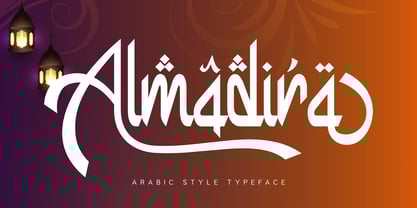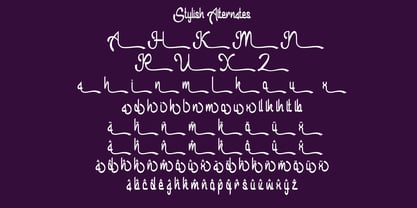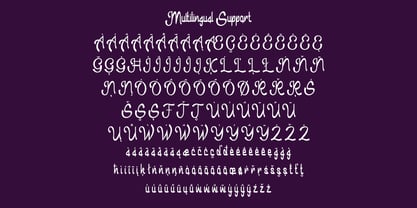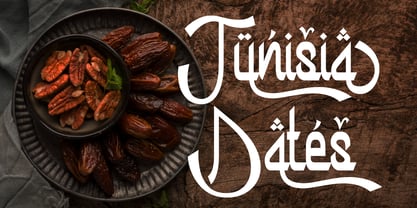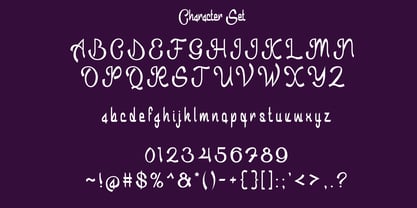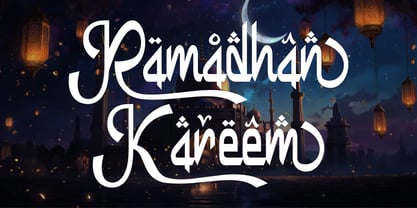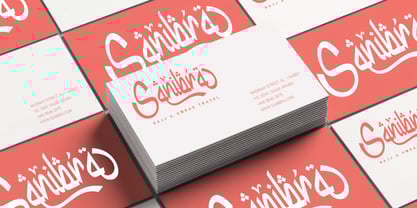
Almadira
Die Schriftfamilie Almadira wurde von Saiful Anwar entworfen und von Sealoung veröffentlicht. Almadira enthält 1 Stile.
Introducing “Almaira” – an elegant and bold Arabic script font designed to capture the beauty and essence of Ramadan. With its distinctive letterforms and intricate details, this font embodies the spirituality and sacredness of the holy month. Offering alternate uppercase and lowercase characters, “Almaira” provides versatility and authenticity for Ramadan-themed designs. Perfect for invitations, posters, or social media content, this font adds a touch of aesthetics and reverence to your projects, ensuring they reflect the true spirit of Ramadan.